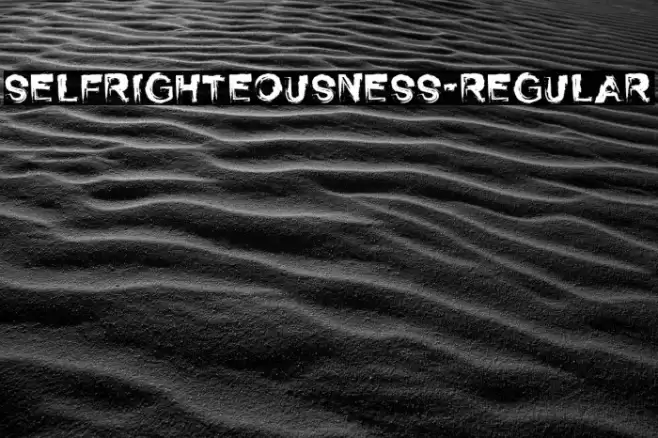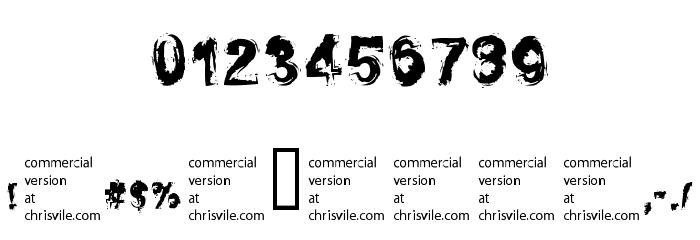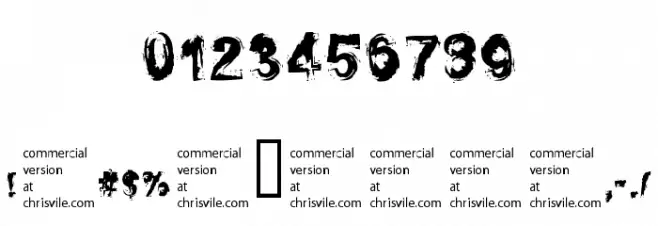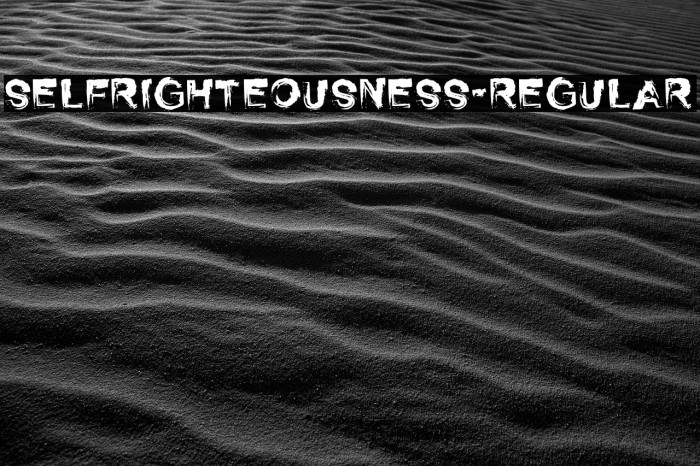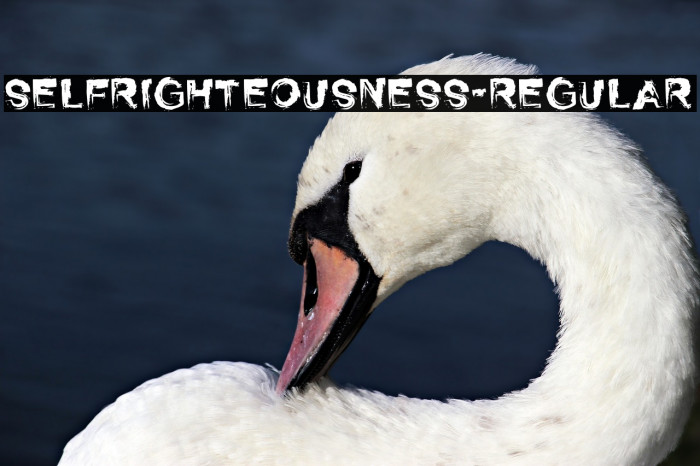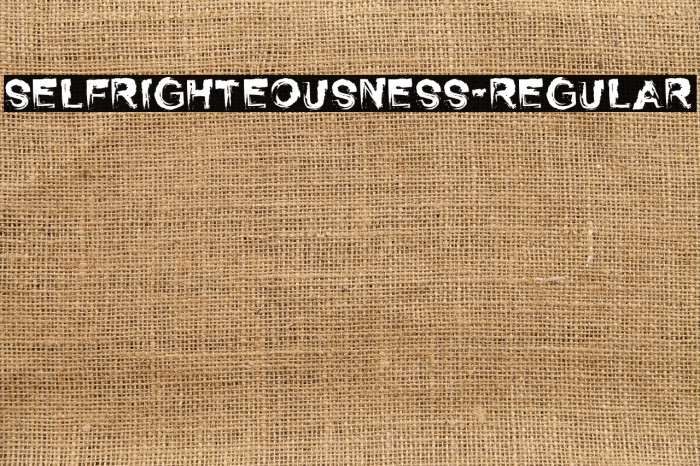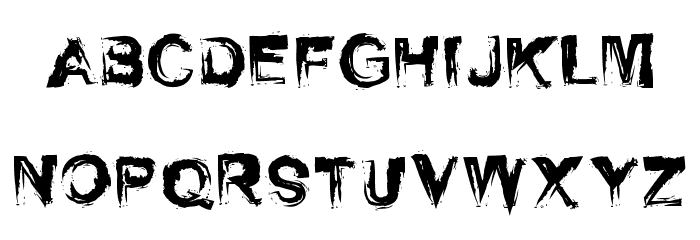
SelfRighteousness-Regular Font
SelfRighteousness-Regular Description
This font exhibits a bold and distressed style, characterized by rough, jagged edges and a grunge aesthetic. The uppercase and lowercase letters maintain a consistent height, with each character appearing as if it has been scratched or eroded. The numerals and special characters follow the same rugged design, adding to the overall chaotic and edgy feel. This font is ideal for projects requiring a rebellious or raw visual impact, such as music album covers, posters, or urban-themed designs. Its unique appearance makes it stand out, ensuring that any text set in this font will capture attention.
A bold, distressed font with a grunge aesthetic and jagged edges from Fancy fonts.
- Proposed Projects: Album covers, posters, urban-themed designs, rebellious branding.
- Overall Style: Grunge, Edgy, Distressed